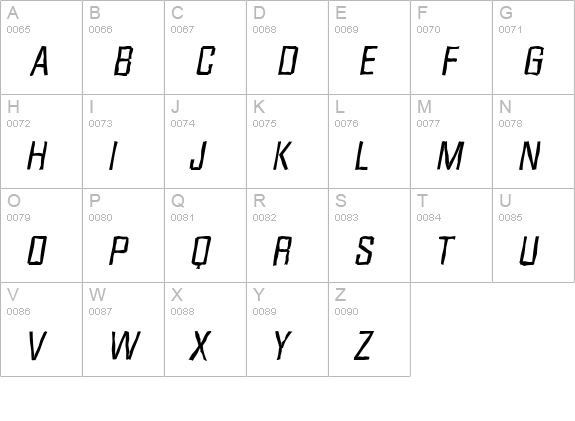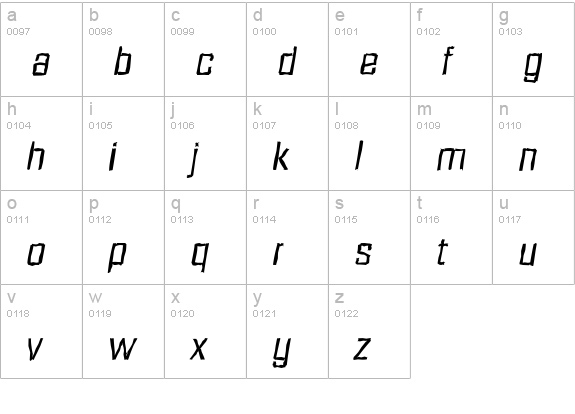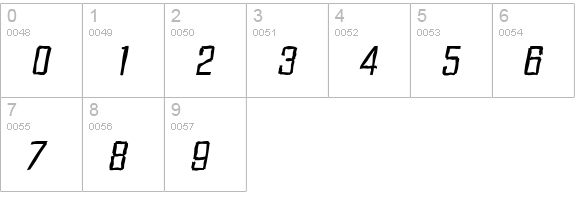
DiamanteAntique-Italic is a distinctive, italic variant in the DiamanteAntique typeface family \xE2\x80\x94 well suited to design and typography projects.
DiamanteAntique-Italic font exudes elegance and sophistication with its intricate design and classic appeal. The italic style adds a touch of flair and refinement to any project, making it a perfect choice for invitations, branding, and editorial designs. What sets DiamanteAntique-Italic font apart is not just its timeless beauty, but also the fact that it is available for free download at FontsMarket.com. This means that you can effortlessly elevate your designs with this stunning typeface without breaking the bank. Embrace the charm and grace of DiamanteAntique-Italic font and bring a touch of luxury to your creative endeavors. Download it today from FontsMarket.com and let your designs shine with sophistication and style.